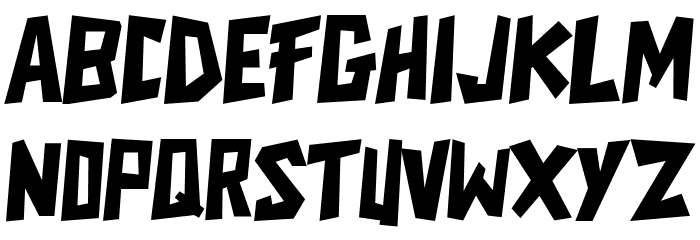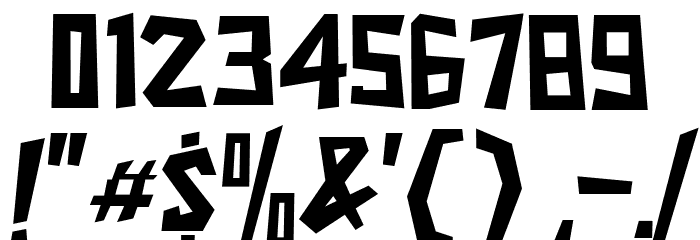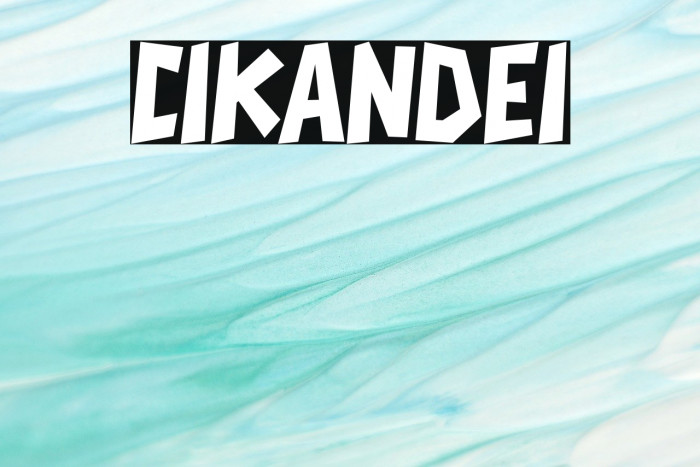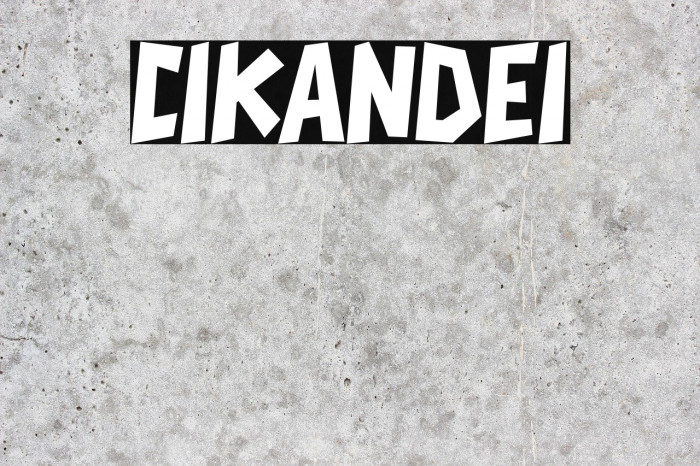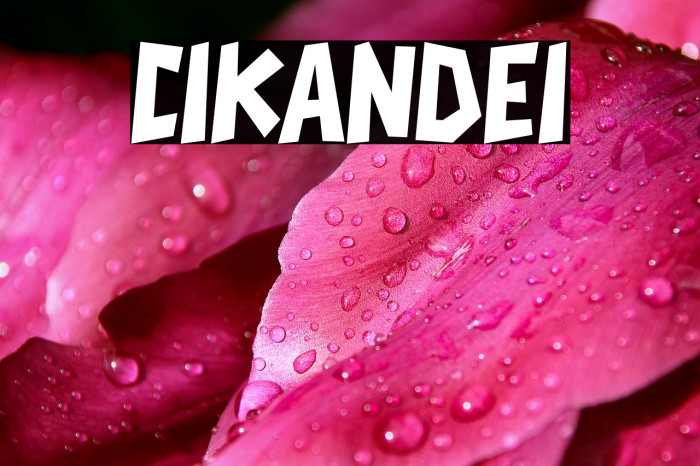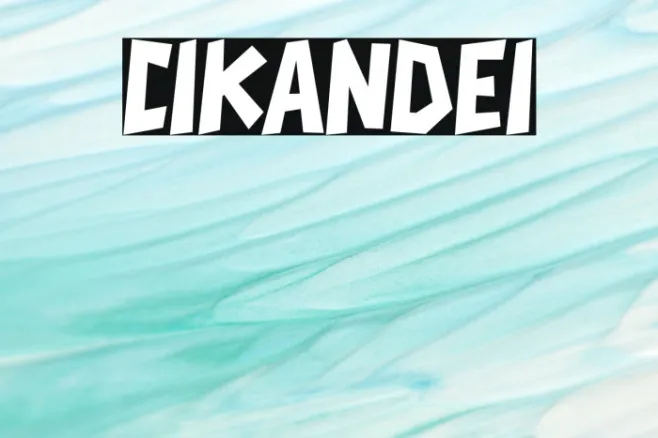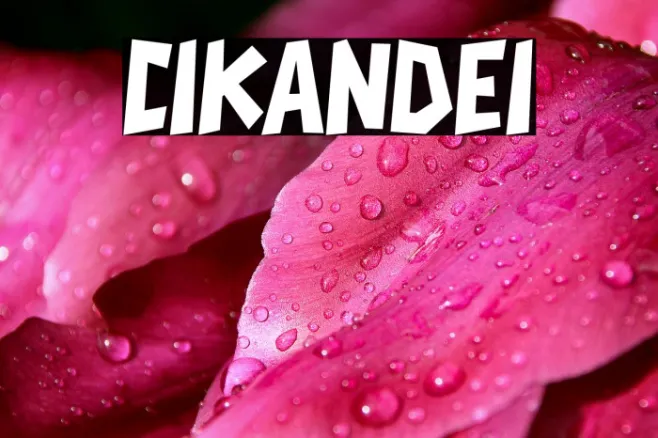
CIKANDEI Font
This bold and dynamic font features a striking, angular design with sharp edges and a slightly distorted appearance. The characters are heavily stylized, giving them a unique and edgy look that stands out. The uppercase letters are particularly prominent, with a strong presence that commands attention. The numbers and special characters maintain the same bold style, ensuring consistency across all elements. This font is perfect for projects that require a modern and impactful aesthetic, such as posters, album covers, or branding materials that aim to make a bold statement.
A bold, angular font with a dynamic and edgy style.
- Proposed Projects: Ideal for posters, album covers, branding, and any project needing a bold statement.